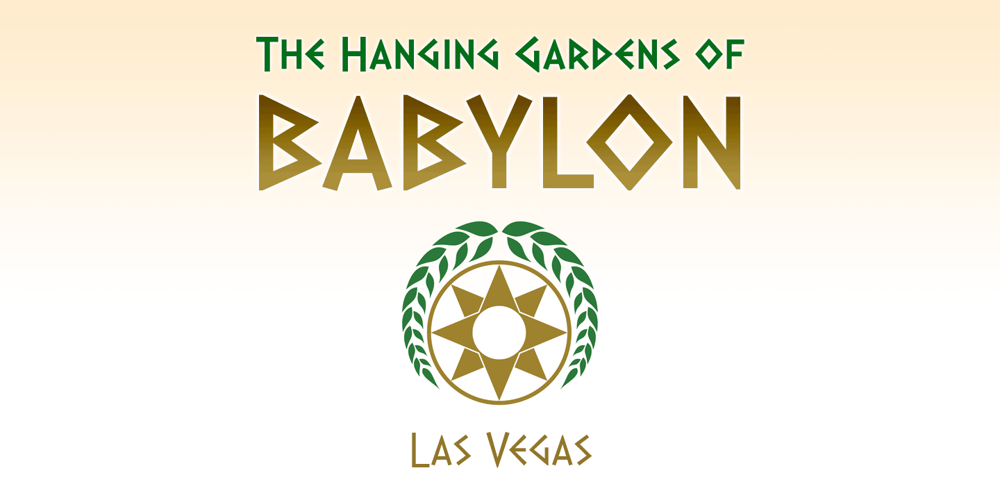
Dalek Pinpoint Font Family was designed by Keith Bates and published by K-Type. Dalek Pinpoint contains 4 styles and family package options. DALEK PINPOINT is a clean and precise version of K-Type’s distressed DALEK typeface, a small caps face with overtones of Greek, Phoenician and Runic alphabets, based on Dalek comic book lettering from the 1960s. The package includes Regular and Bold weights, plus an Italic and Bold Italic which are optically corrected obliques. The fonts contain a full complement of Latin Extended-A characters, and now include Greek capitals and small caps.